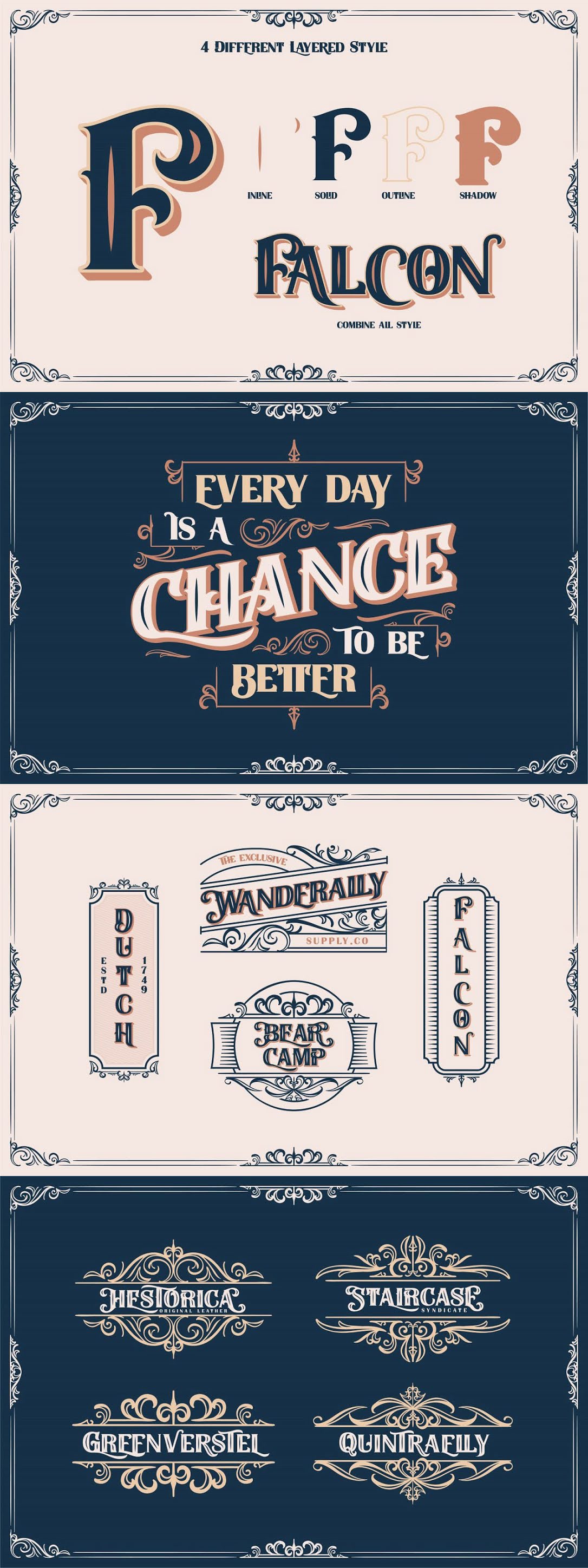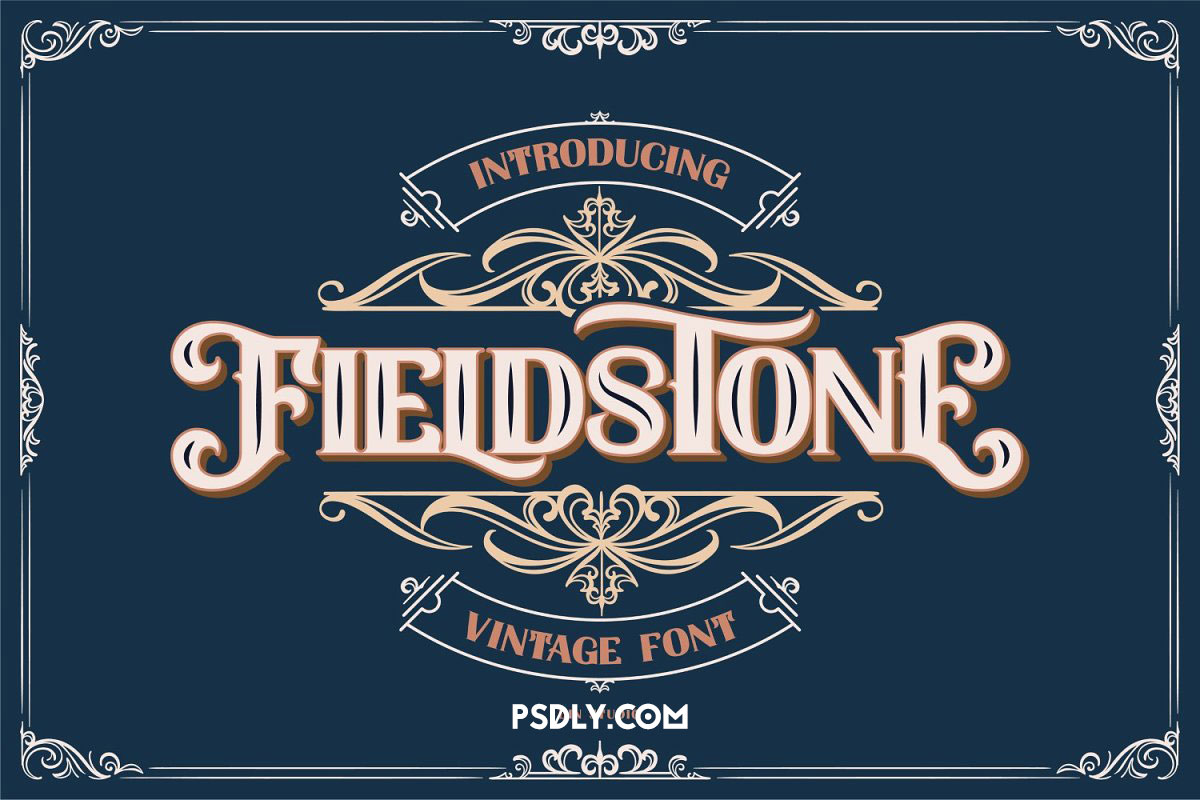
Filedstone Layered Fonts
Creativemarket Filedstone Layered Fonts Free Download. Fieldstone is an amazing display font. The font is suitable for any project like branding, lettering, T-shirt print, and many others.
• 4 layered Fonts